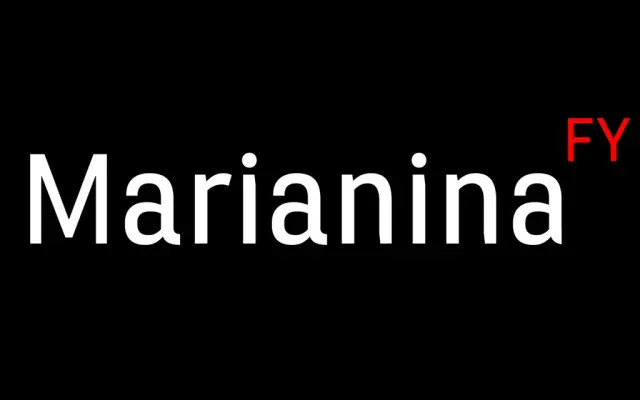
Marianina FY
A sans serif with graduated ink traps across four widths and six weights, offered as two variable fonts covering 48 static styles.
Ink traps that remain subtle at lighter weights and open up noticeably in heavier ones give Marianina FY a quiet personality that shifts with context. The family spans Condensed through Extended, each in six weights from Thin to Bold with matching italics, making it workable across editorial, branding and screen UI without switching families. Two variable fonts cover the full width and weight axes for environments that can use them.
A versatile sans serif with ink traps and 20th-century typographic references, spanning four widths and six weights; the ink trap detailing and warmth of letterform point toward a humanist sans classification.